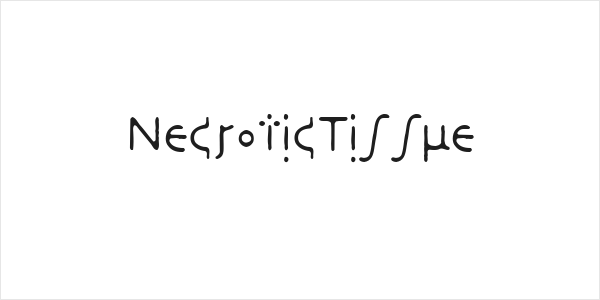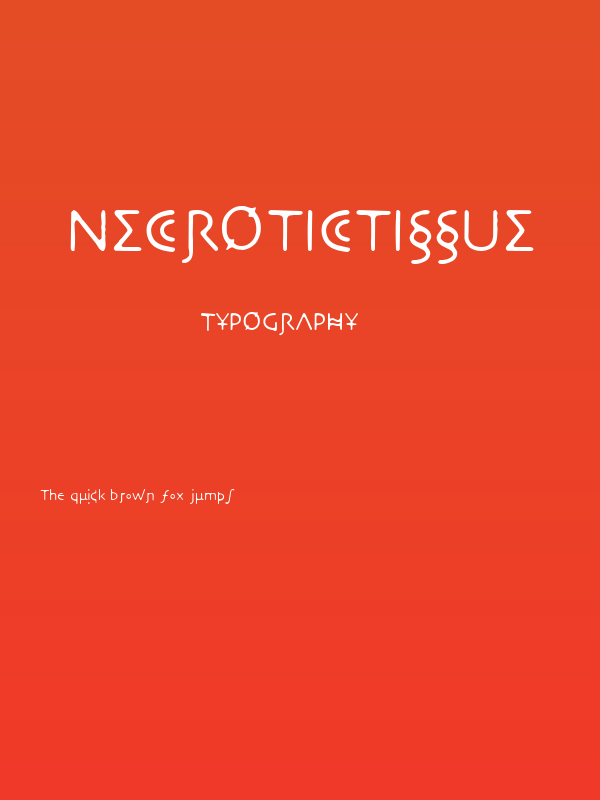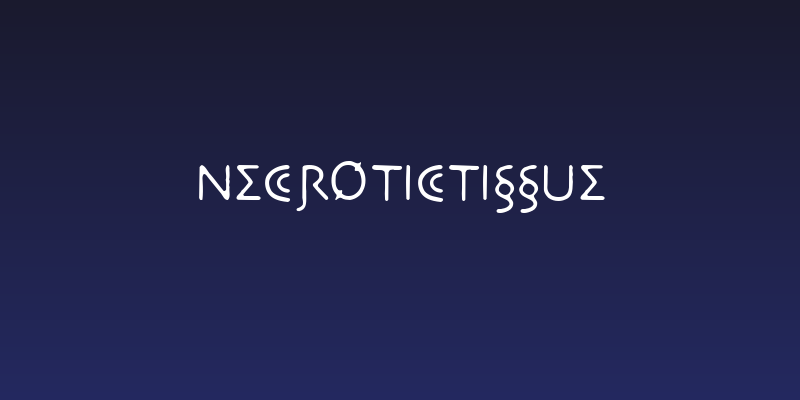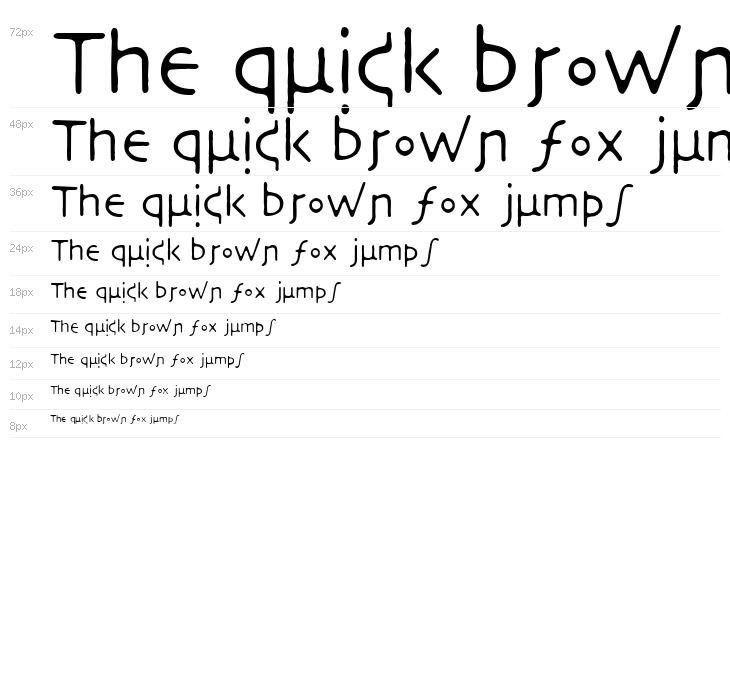
NecroticTissue Font
NecroticTissue Description
This font features a unique and artistic design, characterized by its playful and unconventional letterforms. The uppercase letters have a distinct, almost tribal aesthetic with curves and angles that give them a dynamic appearance. The lowercase letters maintain this style, offering a cohesive look throughout the alphabet. Numbers and special characters are crafted with the same creative flair, making the font suitable for projects that require a touch of individuality and creativity. The overall style is decorative, with a modern twist that makes it stand out.
| Proposed Projects | Ideal for creative projects such as posters, album covers, or branding that seeks a unique and artistic touch. |